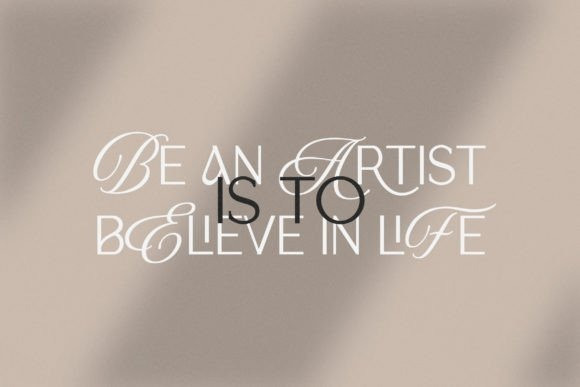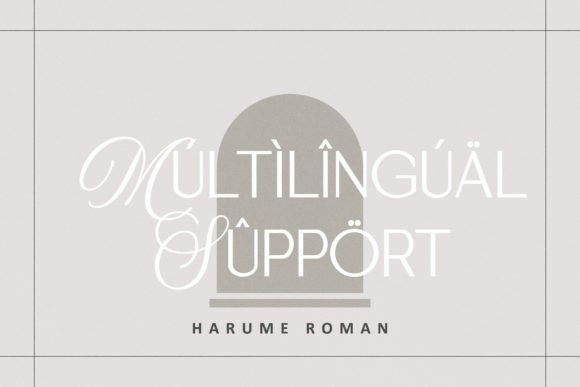
Harume Roman Font
Harume Roman Font is a luxurious and elegant sans-serif font that oozes sophistication and refinement. With its perfectly balanced proportions and subtle details, this font is ideal for creating high-end branding, editorial layouts, and upscale packaging designs that exude class and elegance.